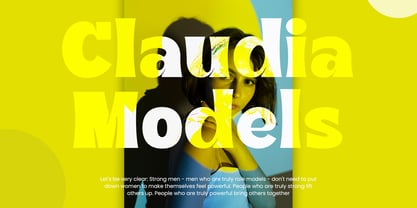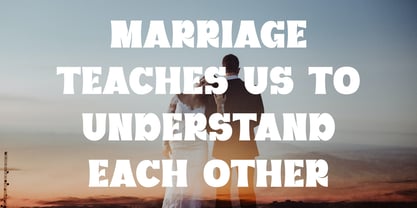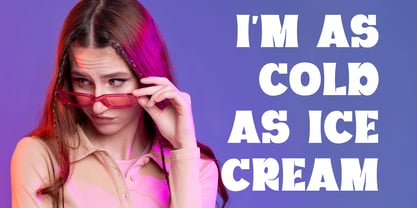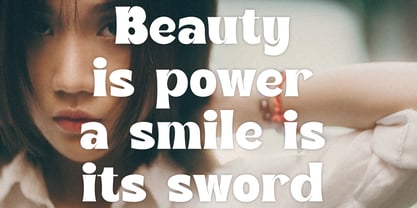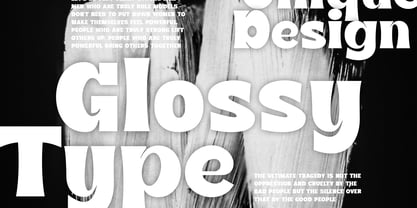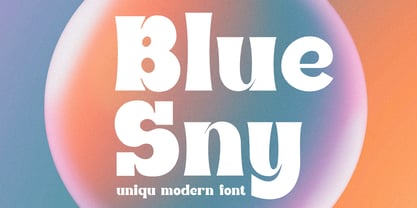
Blue Sny
by Graphicxell
The Blue Sny Font Family was designed by Graphicxell and published by Graphicxell. Blue Sny contains 2 styles and family package options. More about this family
Blue Sny – Unique Display Font Typeface
Blue Sny is a bold, modern sans serif display font with a touch of retro charm. Its unique curves and confident shapes make it perfect for designs that need to stand out. Whether you're working on a logo, product packaging, or digital content, this typeface delivers both style and clarity.
At first glance, Blue Sny appears sleek and contemporary. However, its soft, rounded corners also give it a nostalgic edge—making it suitable for modern and retro-themed designs alike. Because of this balance, it's a smart choice for designers who want flexibility without sacrificing personality.
Moreover, the structure of each letter has been carefully crafted to ensure excellent readability, even in bold or layered compositions. So, whether you're designing for print or screen, your text will remain crisp and attractive.
Why Choose Blue Sny?
• Modern Meets Retro – A fresh sans serif font that blends clean lines with vintage-inspired curves.
• Designed for Branding – Perfect for agency work, creative startups, and business presentations.
• Highly Versatile – Use it for logos, ads, esports, games, magazines, brochures, or social media templates.
• Great for Web & Print – Easily adapts to everything from mobile graphics to high-resolution print.
In addition, Blue Sny works especially well in bold titles, packaging, and digital branding. Whether you're creating templates, invitations, or marketing materials, it adds a distinctive look that helps your message shine.
From display text to detailed branding systems, Blue Sny offers the charm of retro fonts with the edge of modern design—giving you the best of both worlds.